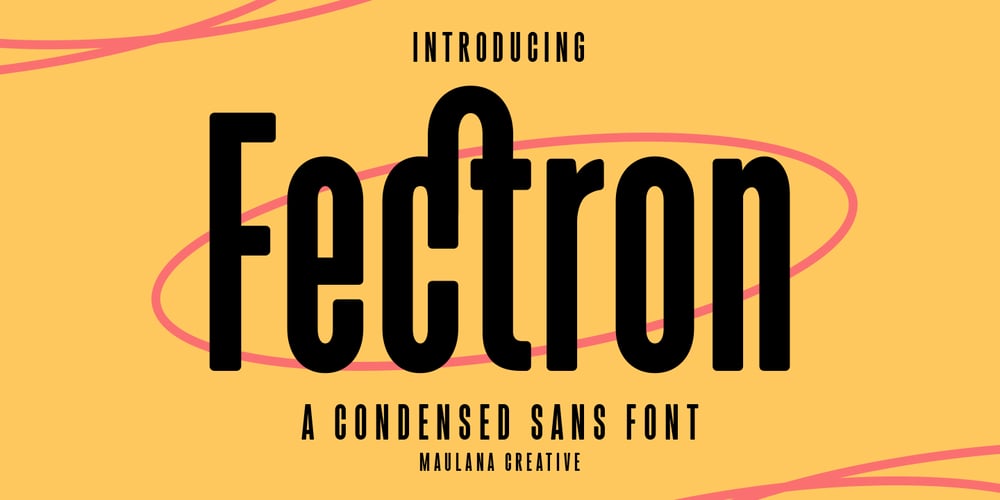
MC Fectron
MC Fectron font
MC Fectron Font Family was designed by Gilang Maulana and published by Maulana Creative. MC Fectron contains 1 styles and family package options. Fectron is a semi round condensed sans serif font. With semi bold stroke, fun character with a bit of ligatures and alternates. To give you an extra creative work. Fectron font support multilingual more than 100+ language. This font is good for logo design, Social media, Movie Titles, Books Titles, a short text even a long text letter and good for your secondary text font with script or serif. Make a stunning work with Fectron font. Cheers, Maulana Creative